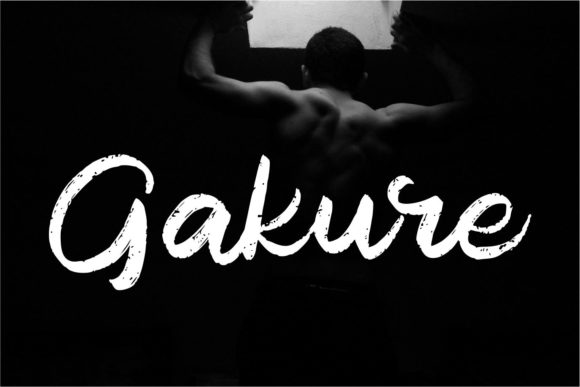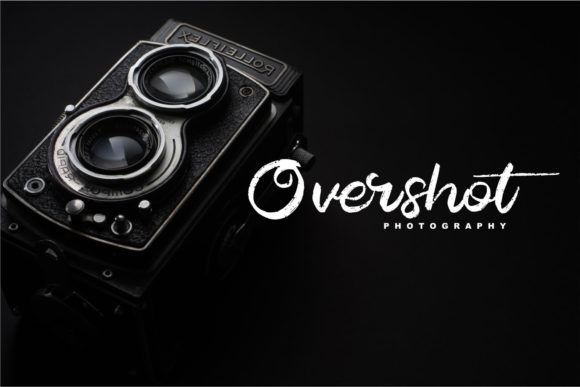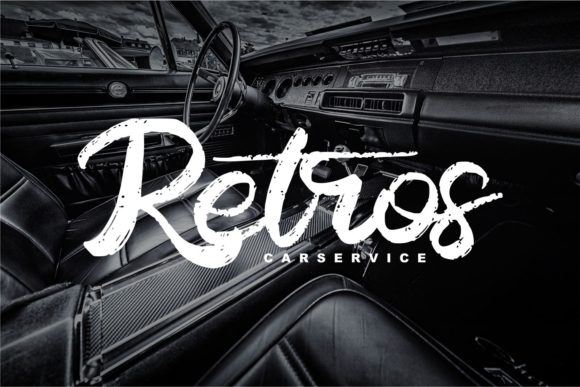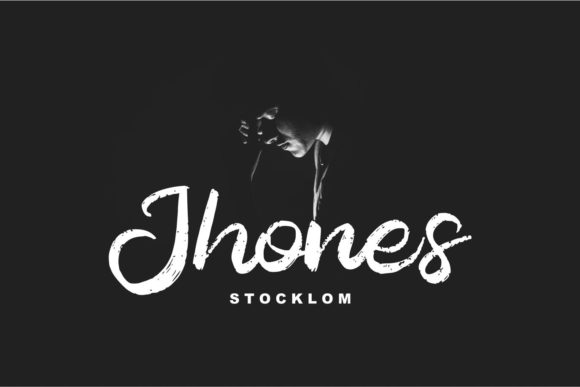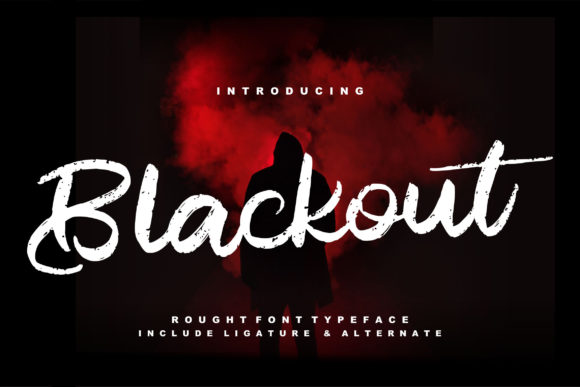
Introducing Blackout Font: A Bold and Authentic Handwritten Calligraphy Homage
In the realm of typography, few fonts manage to capture the essence of classic calligraphy while still exuding a modern, edgy vibe. Blackout font is one such remarkable typeface that has gained significant attention among designers and crafters alike. As a striking homage to classic calligraphy, Blackout is a bold and authentic handwritten font that brings a touch of sophistication and elegance to any design project.
The Origins of Blackout Font
Blackout font was designed with the intention of reviving the timeless charm of traditional calligraphy. Its creator aimed to craft a font that not only pays tribute to the classic scripts of the past but also meets the demands of contemporary design. The result is a font that embodies the fluidity and expressiveness of handwriting, combined with the boldness and clarity needed for modern applications.
Key Features of Blackout Font
So, what makes Blackout font stand out from the multitude of typefaces available today? Here are some of its key features:
- Bold and Authentic: Blackout font boasts a bold and authentic look that immediately captures attention. Its strokes are confident and deliberate, giving the font a strong personality.
- Handwritten with Precision: Despite its bold appearance, Blackout font retains the fluidity and nuances of handwritten script. Each letter is crafted with precision, ensuring that the font looks natural and organic.
- Versatile: Blackout font is incredibly versatile, making it suitable for a wide range of design projects. From branding and advertising to packaging and digital media, this font can adapt to various contexts with ease.
- Highly Legible: One of the standout features of Blackout font is its legibility. Even at smaller sizes, the font remains clear and easy to read, making it perfect for body text and headlines alike.
Applications of Blackout Font
Given its unique combination of boldness, authenticity, and versatility, Blackout font finds applications in various design fields. Here are some of the areas where Blackout font truly shines:
- Branding and Logo Design: For businesses looking to make a strong statement, Blackout font can be an excellent choice for logos and brand identities. Its bold and memorable appearance ensures that the brand stands out.
- Advertising and Marketing Materials: In advertising, grabbing attention is crucial. Blackout font, with its striking appearance, is perfect for headlines and titles that need to pop.
- Packaging Design: Product packaging is another area where Blackout font can make a significant impact. Its bold and authentic look can add a touch of elegance and sophistication to product labels and packaging.
- Digital Media: In the digital realm, Blackout font can be used in website headers, social media graphics, and digital advertising. Its legibility and boldness make it an excellent choice for digital content.
Tips for Using Blackout Font Effectively
To make the most of Blackout font, here are some tips for designers and crafters:
- Pair with Simpler Fonts: For optimal readability, consider pairing Blackout font with simpler, sans-serif fonts for body text. This contrast ensures that your message is conveyed clearly.
- Experiment with Colors: Blackout font looks stunning in bold colors. Experiment with different color schemes to find the one that best suits your design.
- Adjust Letter Spacing: Depending on the context, adjusting the letter spacing can enhance the overall look of the font. For headlines, tighter spacing can create a more compact, impactful look.
Blackout font is a remarkable typeface that successfully blends the elegance of classic calligraphy with the demands of modern design. Its bold and authentic handwritten appearance makes it a versatile tool for designers and crafters looking to add a touch of sophistication to their projects. Whether you’re working on branding, advertising, packaging, or digital media, Blackout font is sure to make a lasting impression.
With its impressive features and wide range of applications, Blackout font has earned its place as a go-to typeface for those seeking to make a bold statement. As you explore the possibilities of Blackout font, you’ll discover its potential to elevate your designs and leave a lasting impact on your audience.